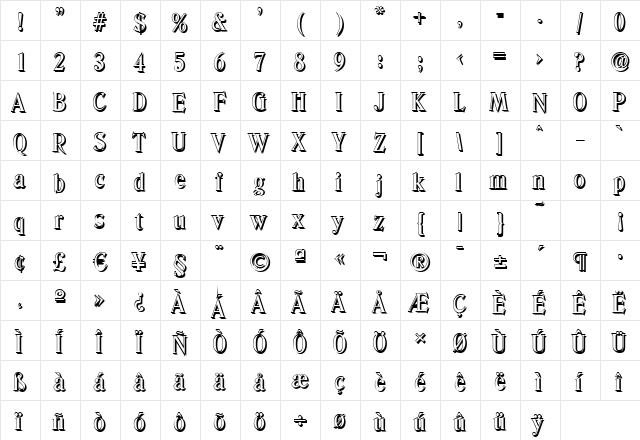
ThomasBeckerShadow-Medium Regular
Design Context for ThomasBeckerShadow-Medium Typeface
ThomasBeckerShadow-Medium brings ornamental detail and strong personality to headlines and identities, where visual impact matters more than quiet functionality.
Font Pairing: Pair with a clean neutral sans-serif for body copy to let ThomasBeckerShadow-Medium's character lead without overwhelming the composition.
Pro Tip: Treat ThomasBeckerShadow-Medium as the centrepiece of your typographic hierarchy. One strong heading set in a decorative face can carry an entire layout.